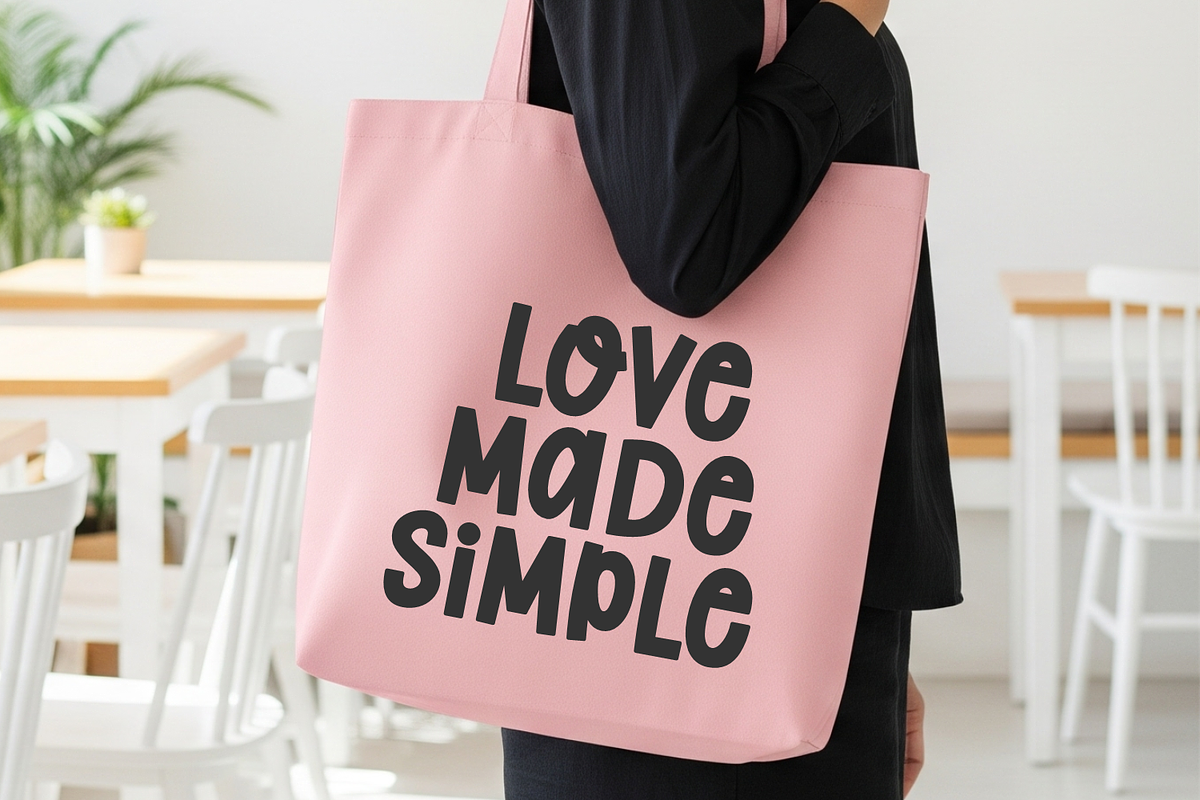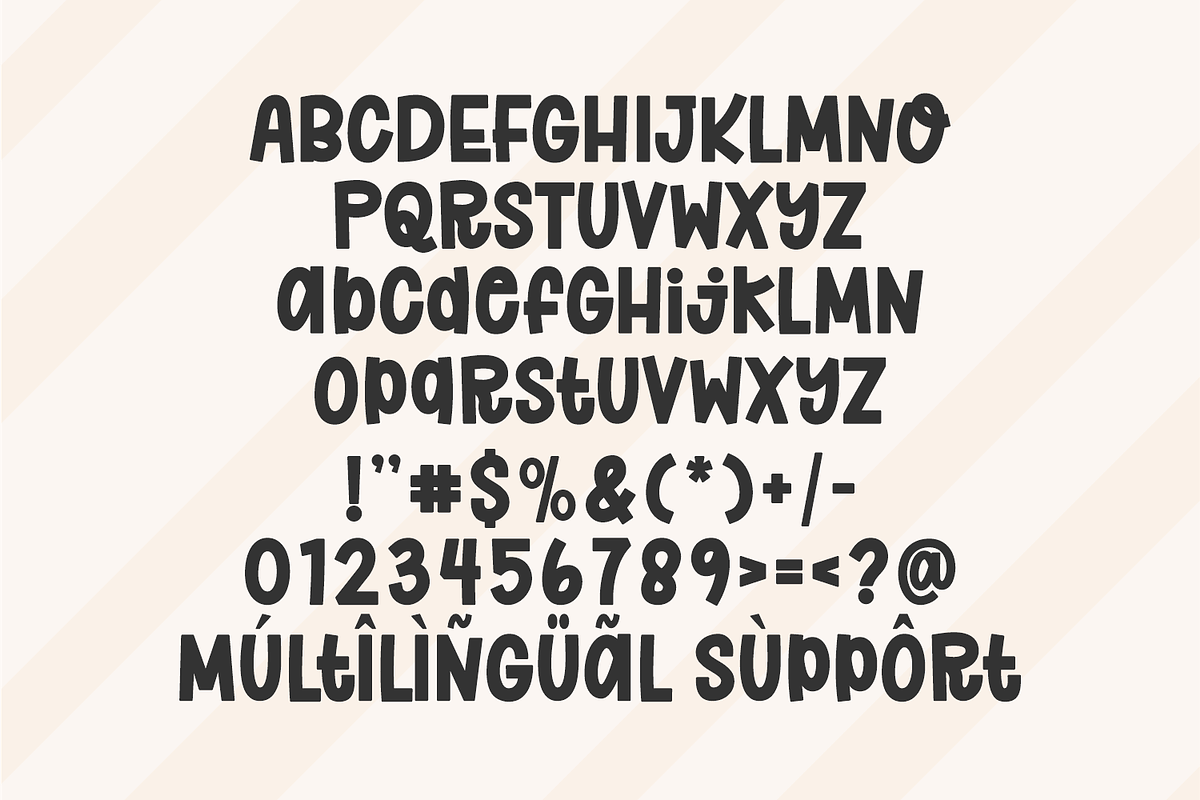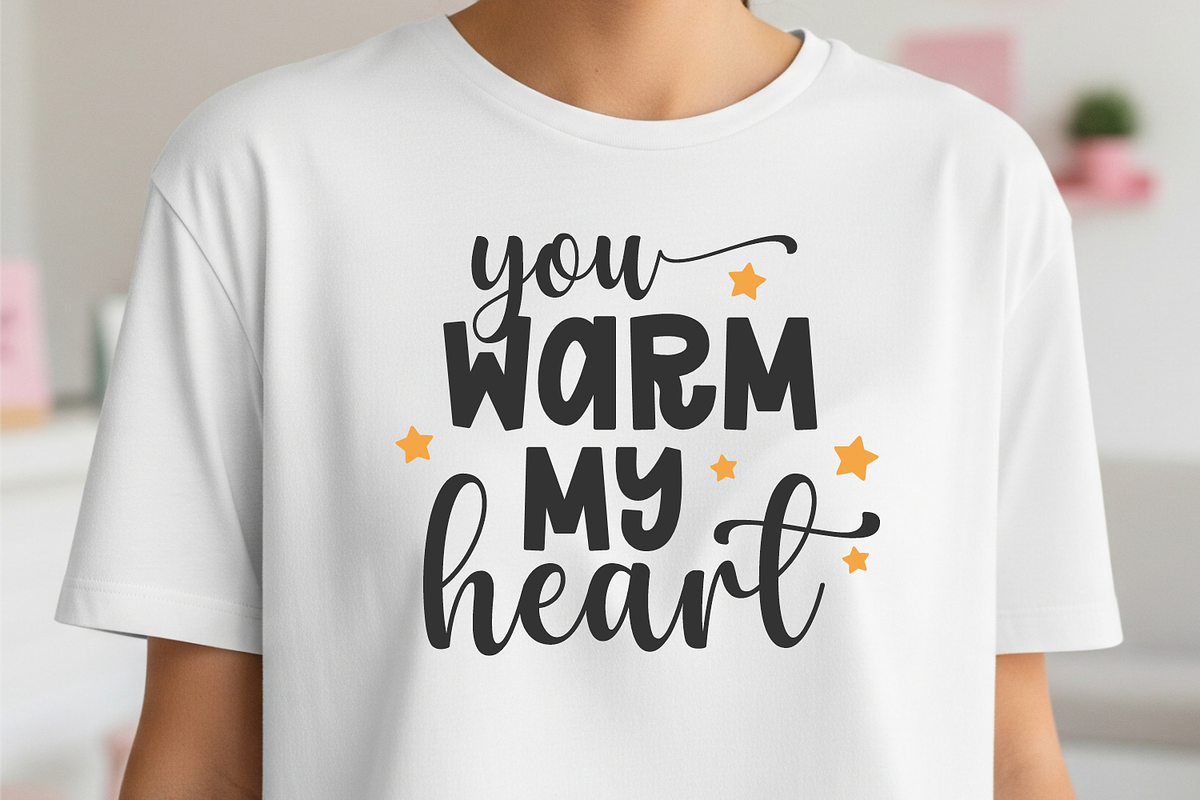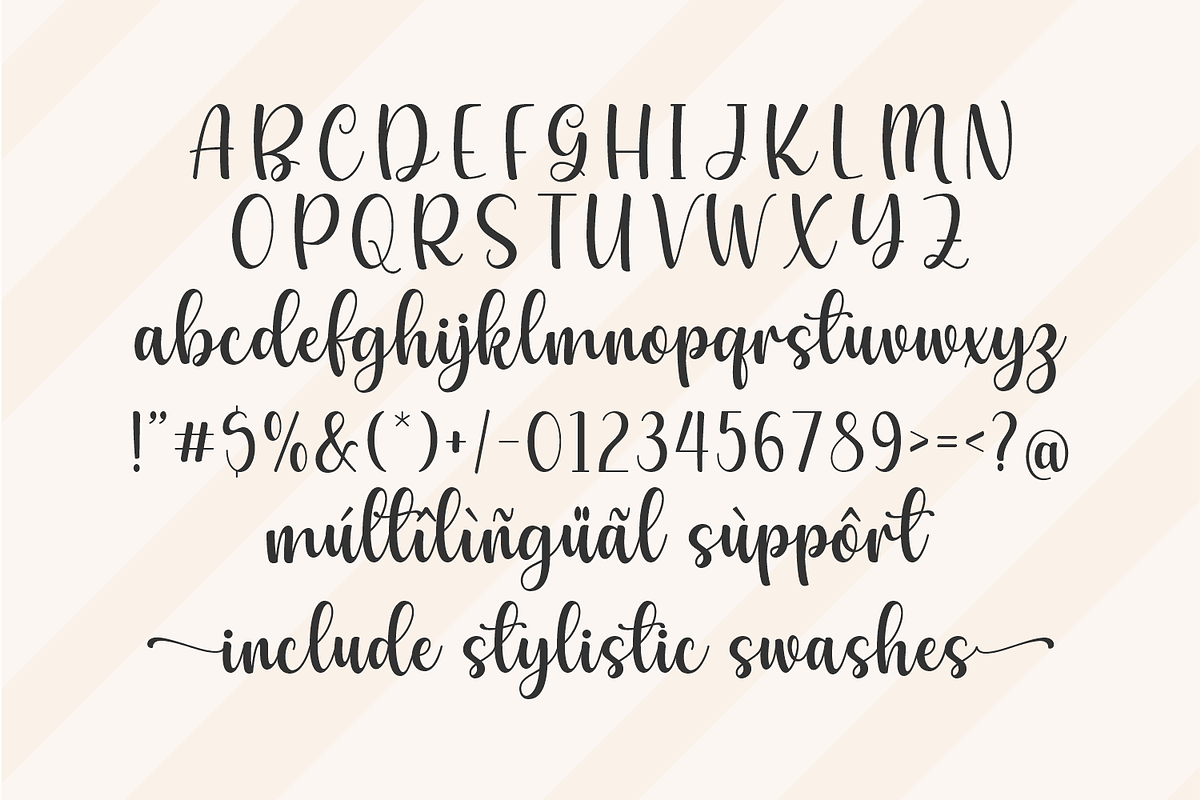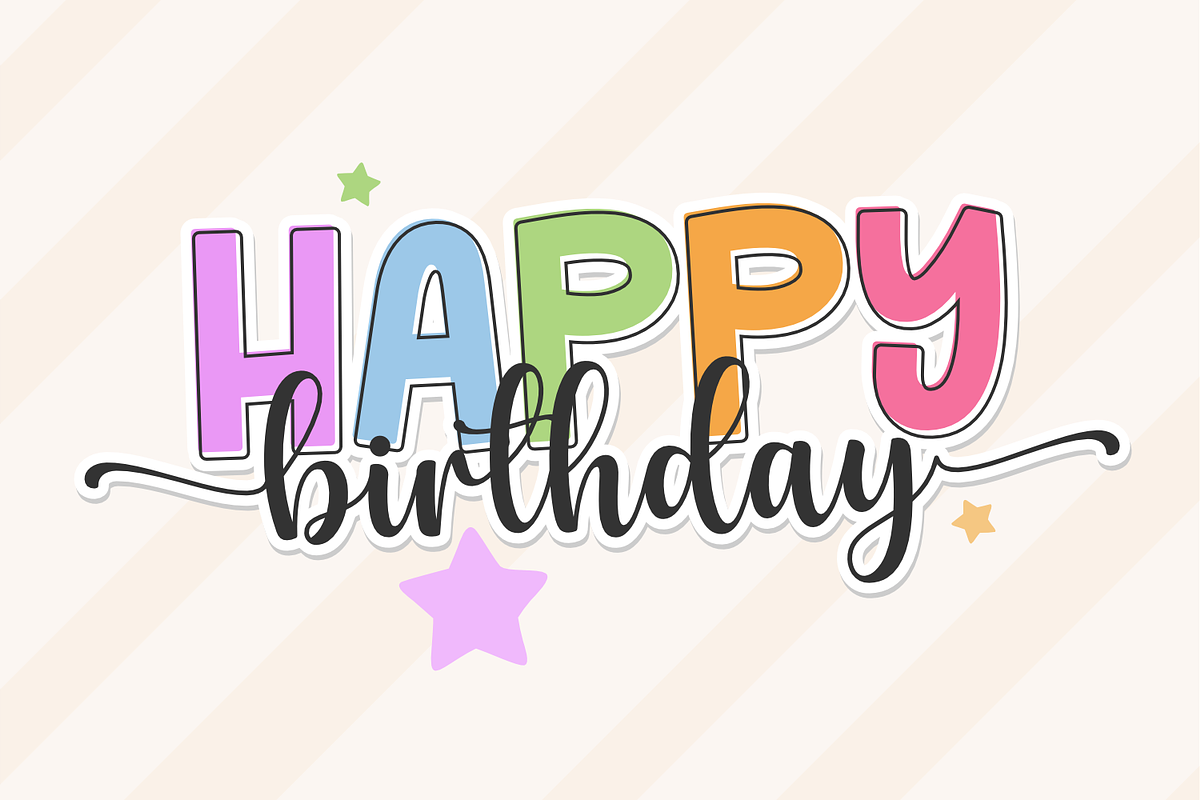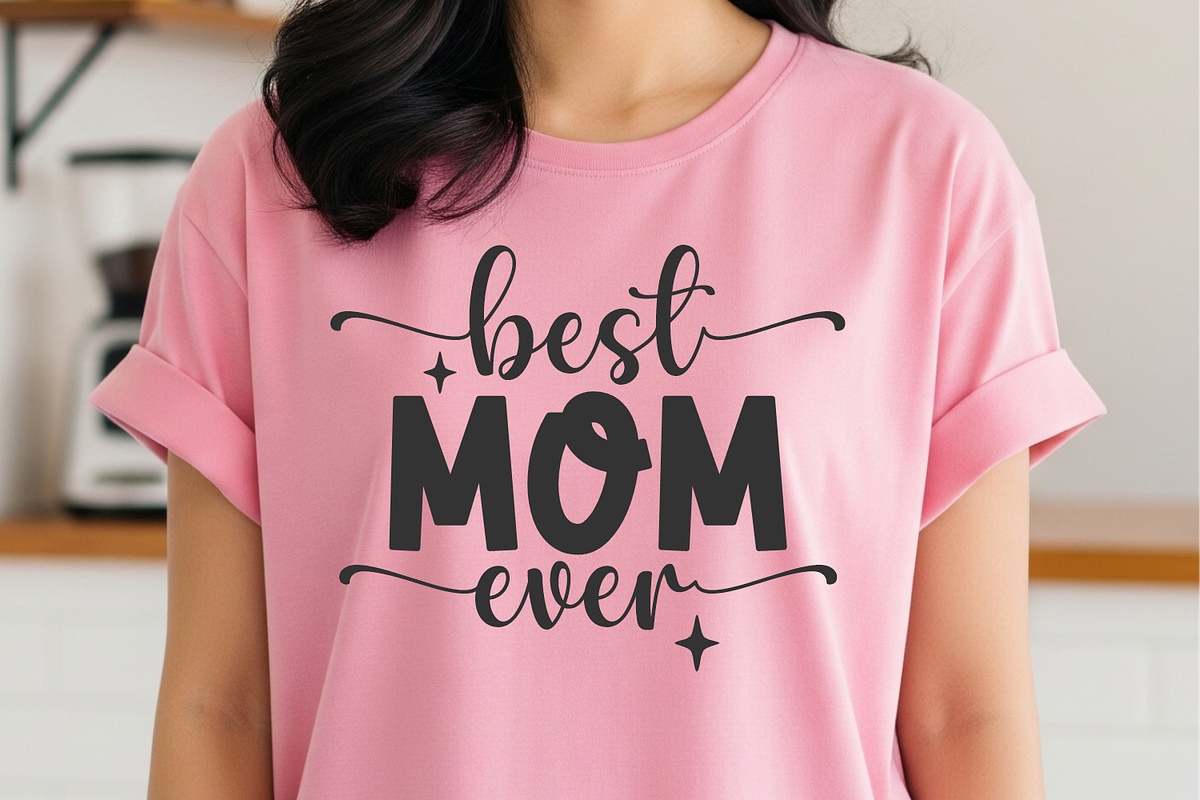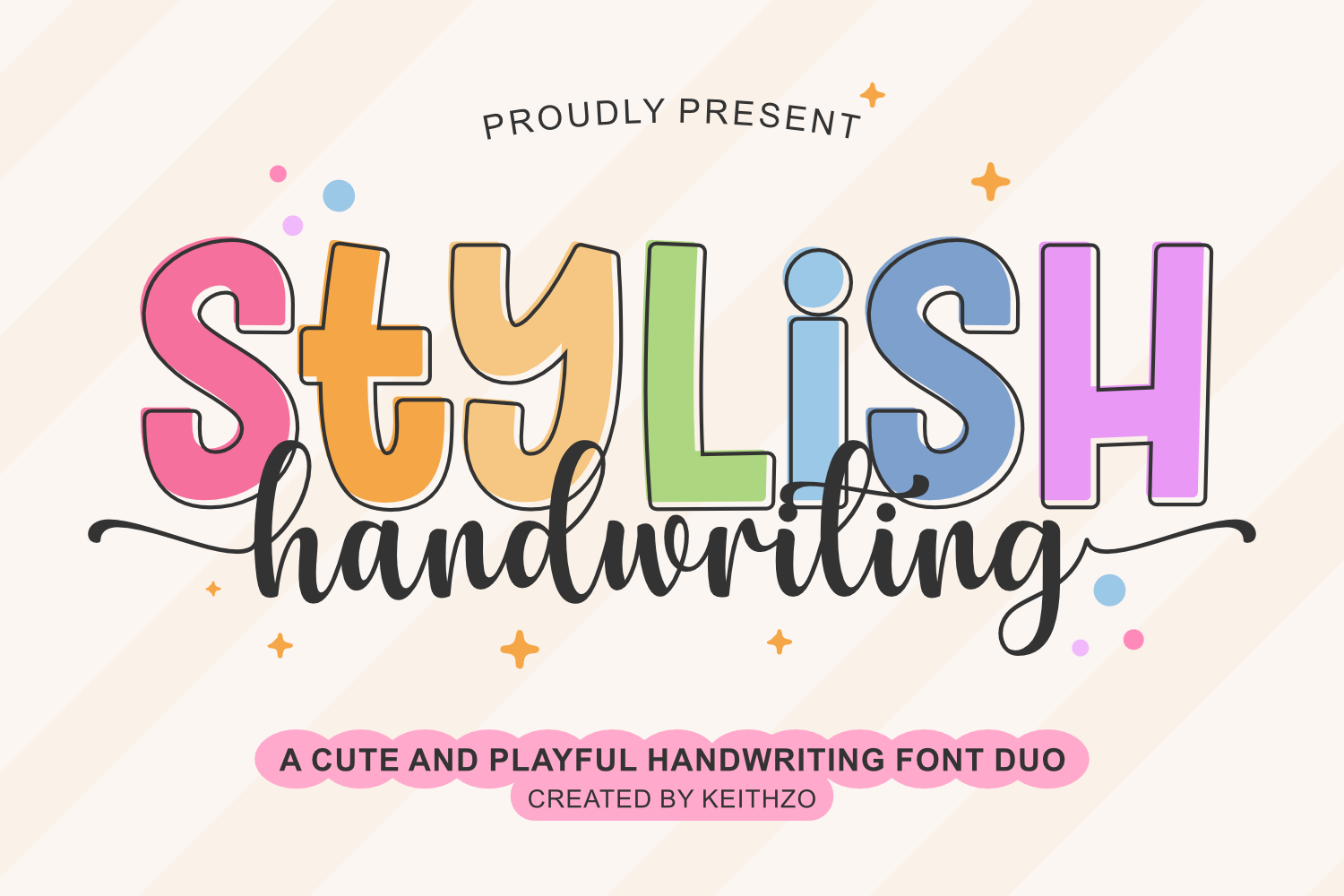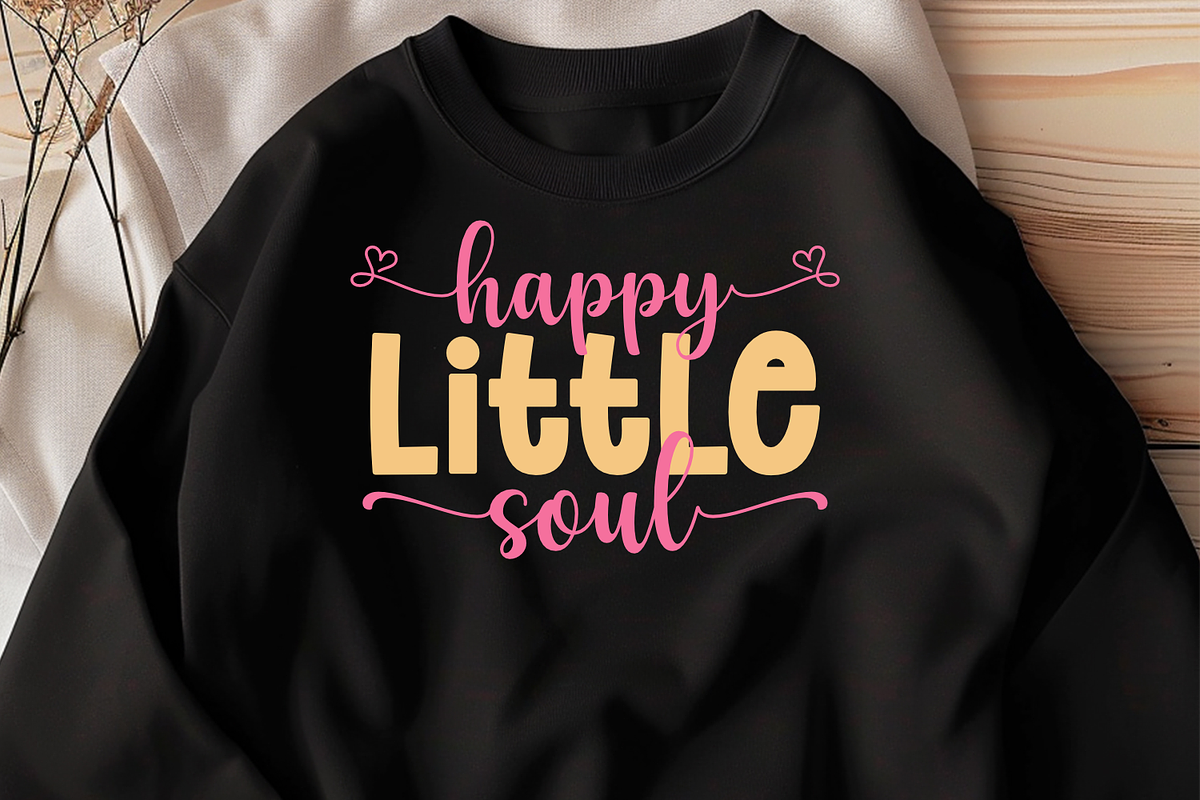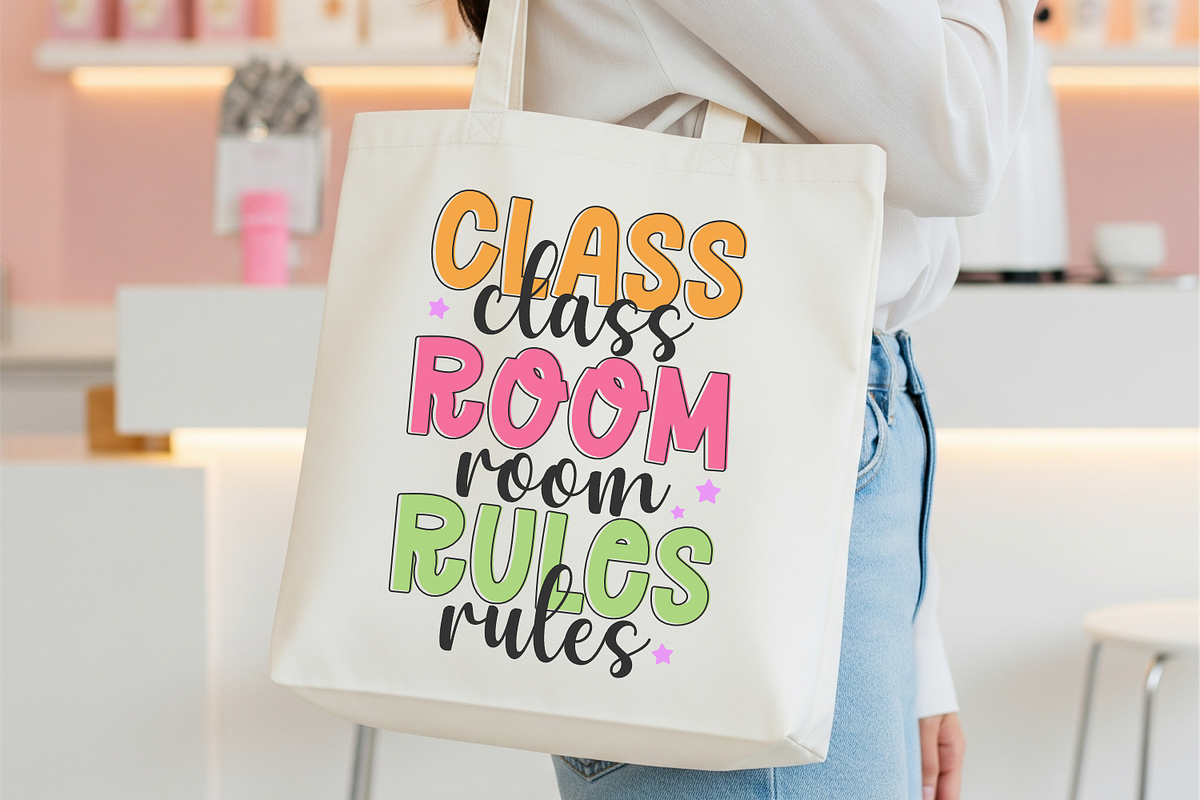
Stylish Handwriting - Font Duo
Stylish Handwriting – A Playful & Cute Font Duo. Bring a fresh, energetic vibe to your creative projects with Stylish Handwriting, a versatile font duo that seamlessly blends a modern, bold display font with a sweet, authentic handwriting script featuring elegant stylistic swashes. This craft-friendly set is meticulously designed with clean lines, making it the perfect choice for Cricut users, SVG designers, and Teachers looking for high-quality Spring, Easter, or Birthday themed typography.
Ideal for T-shirts, tote bags, and sublimation projects, Great for birthday cards, party decor, and seasonal greetings, Perfect for social media, digital planners, and branding. Stylish Handwriting Full OpenType support (Swashes & Stylistic Sets), plus numbers and punctuation